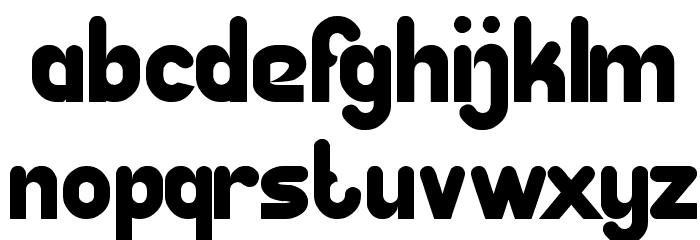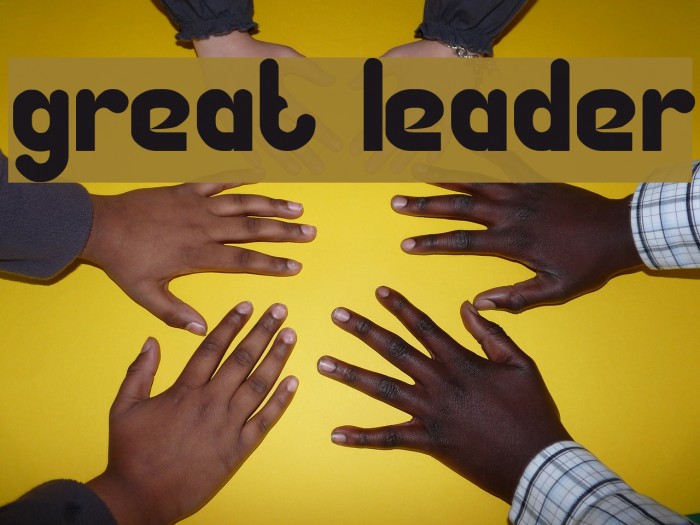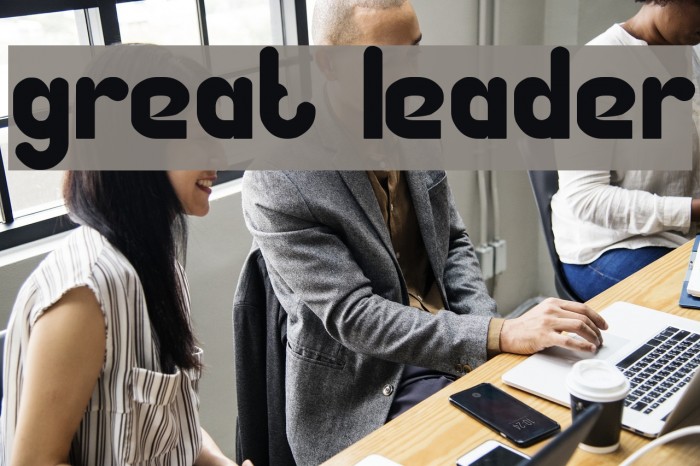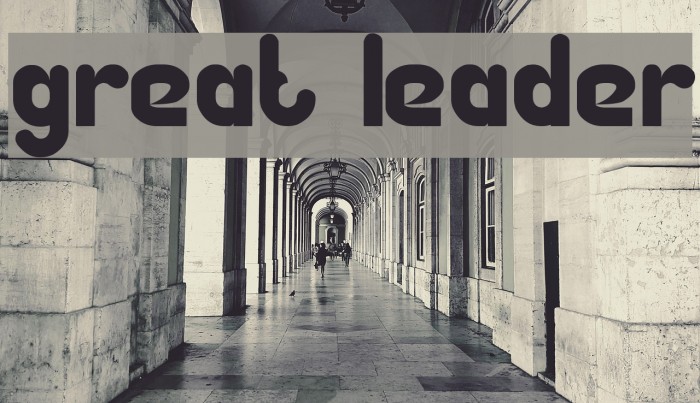
Great Leader Font
This font features bold, rounded characters with a playful and modern aesthetic. The letters are uniformly thick, giving a strong and confident appearance. The rounded edges and smooth curves create a friendly and approachable feel, making it suitable for a variety of design projects. The consistent stroke width across all characters ensures readability and a cohesive look. The font's unique style is both eye-catching and versatile, making it ideal for creative and contemporary designs.
A bold, rounded font with a playful and modern style.
- Proposed Projects: Ideal for branding, children's books, playful posters, and modern web design.